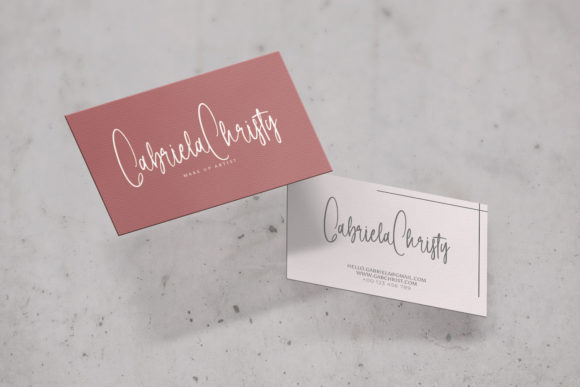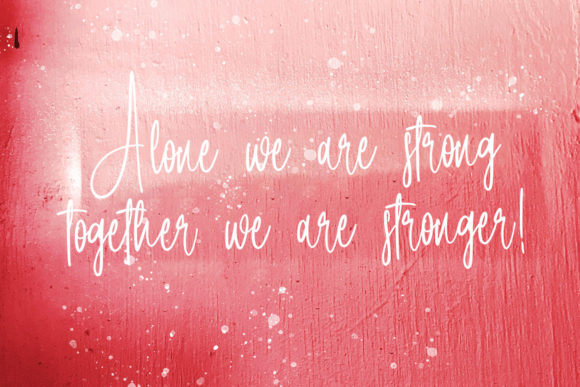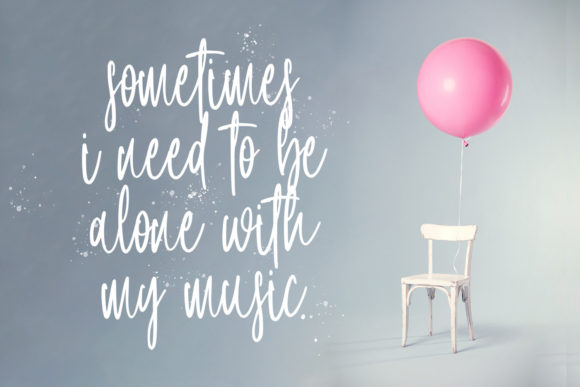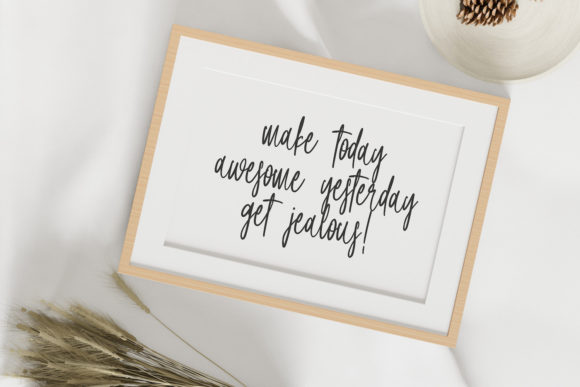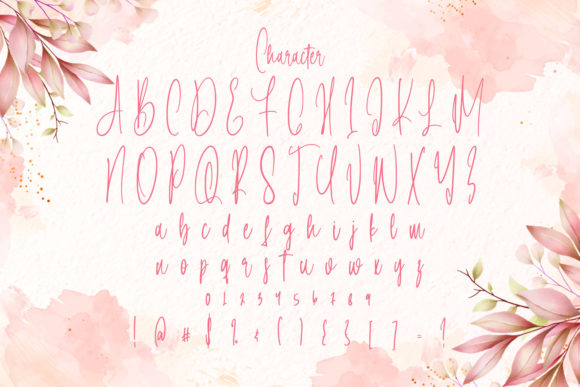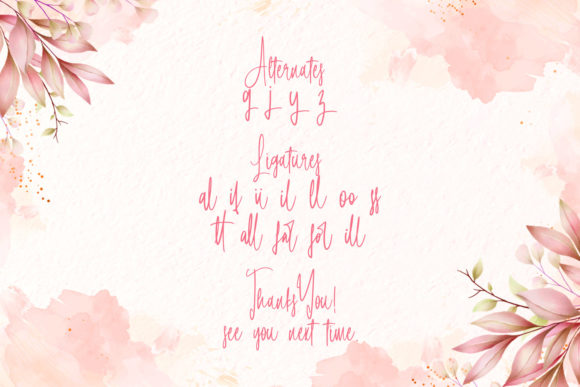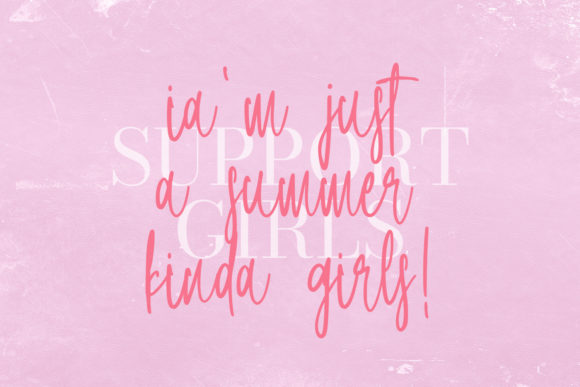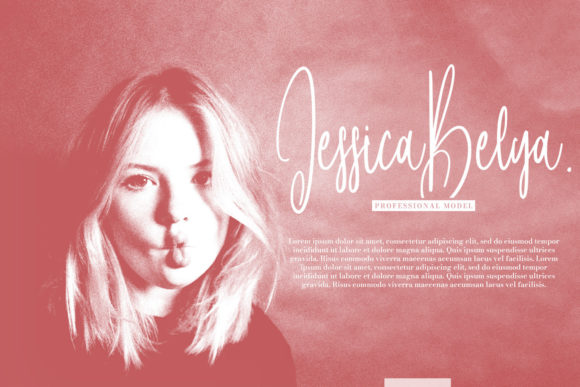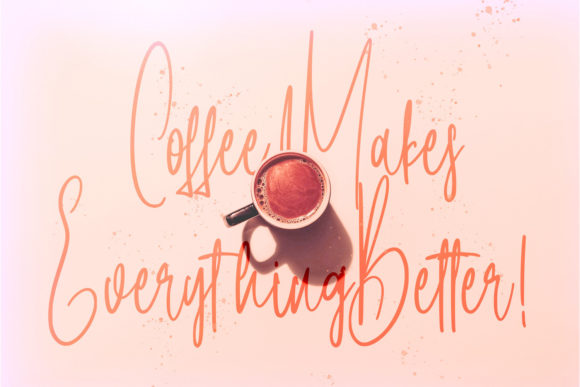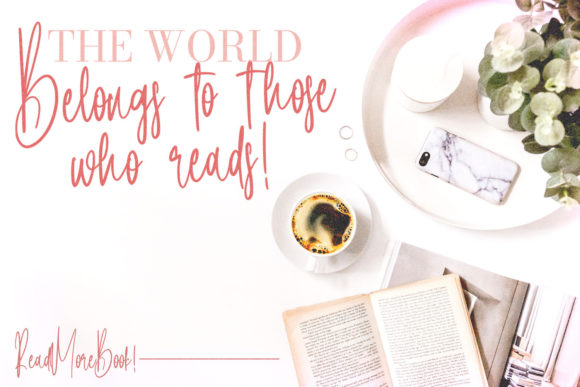
Lintang Kangen Font
About Lintang Kangen Font
Lintang Kangen is an exquisite and refined script font that exudes class, elegance, and modernity. With its stylish and sophisticated appearance, this font is perfect for a wide range of design projects, including logos, branding materials, invitations, stationery, wedding designs, social media posts, and more.
The elegant and flowing strokes of each letter in Lintang Kangen give it a sense of grace and beauty. Every character is meticulously crafted to convey a sense of refinement and sophistication. The font’s sleek and modern look adds a contemporary touch to any design, making it versatile for various applications.
Whether you’re creating a high-end logo or a captivating wedding invitation, Lintang Kangen will elevate your designs and leave a lasting impression on your audience. Its timeless appeal and versatility make it suitable for both digital and print mediums.
The clean and well-balanced letterforms of Lintang Kangen ensure excellent legibility, allowing your message to be communicated effectively. This makes it a reliable choice for any project that requires a clear and professional appearance.
Lintang Kangen’s extensive character set provides you with a wide range of stylistic alternatives and decorative elements to customize and enhance your designs. From elegant ligatures to stylish swashes, you have the flexibility to add unique touches and create eye-catching compositions.
In summary, Lintang Kangen is a beautiful and refined script font that combines class, elegance, and modernity. Its stylish appearance, versatility, and extensive character set make it a valuable asset for various design projects. Enhance your creations with the timeless elegance of Lintang Kangen and create captivating designs that resonate with sophistication.